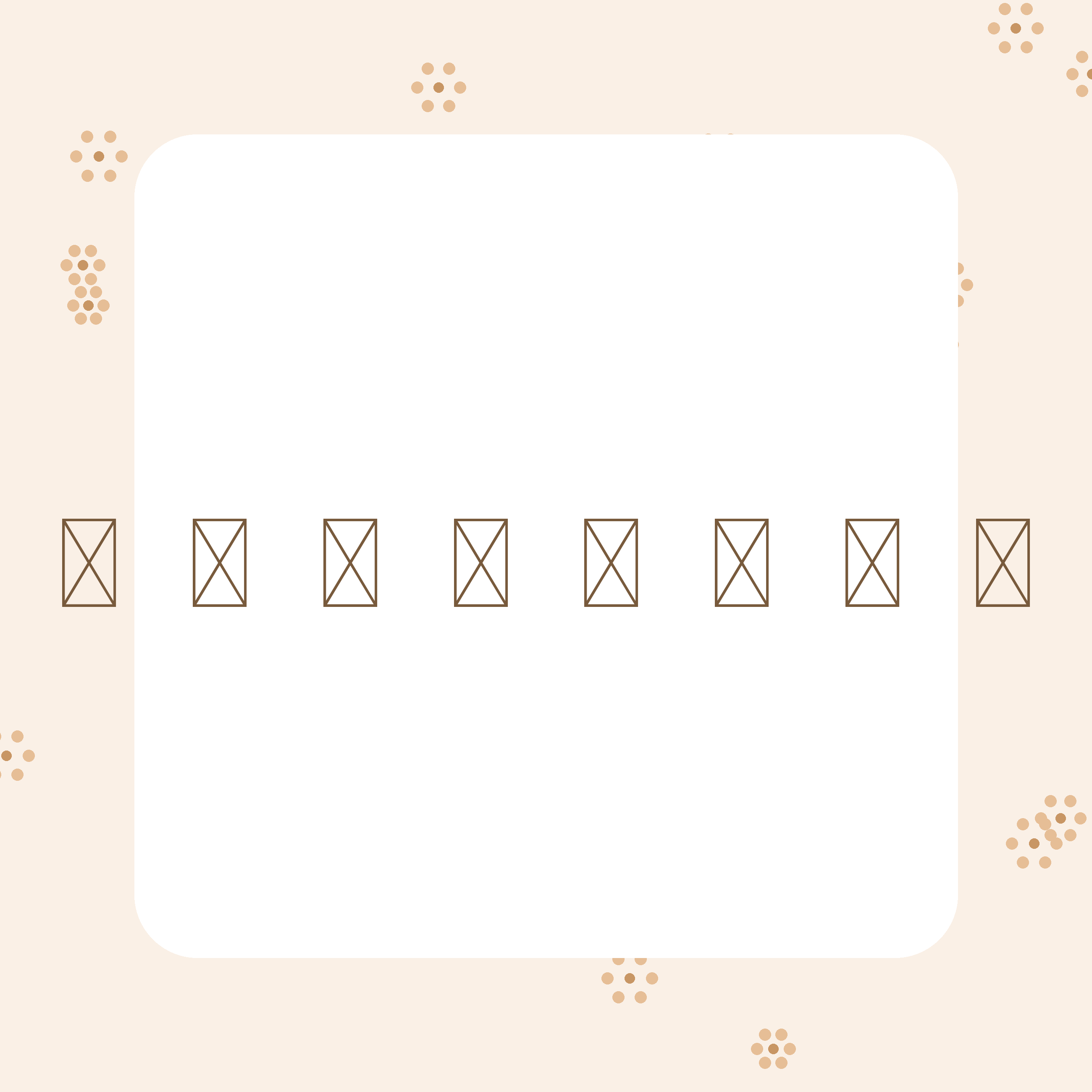
Karmila Elegant Floral Script Font | Cricut Font | Romantic Handwritten Branding Font
🌸 Karmila is a graceful, floral-inspired handwritten script font with a soft and timeless feel. Designed with smooth curves and extra-large lettering, this font is perfect for Cricut projects, invitations, branding, and elegant designs.
✨ Soft floral lettering
✨ Extra-large and easy to read
✨ Perfect for romantic & elegant projects